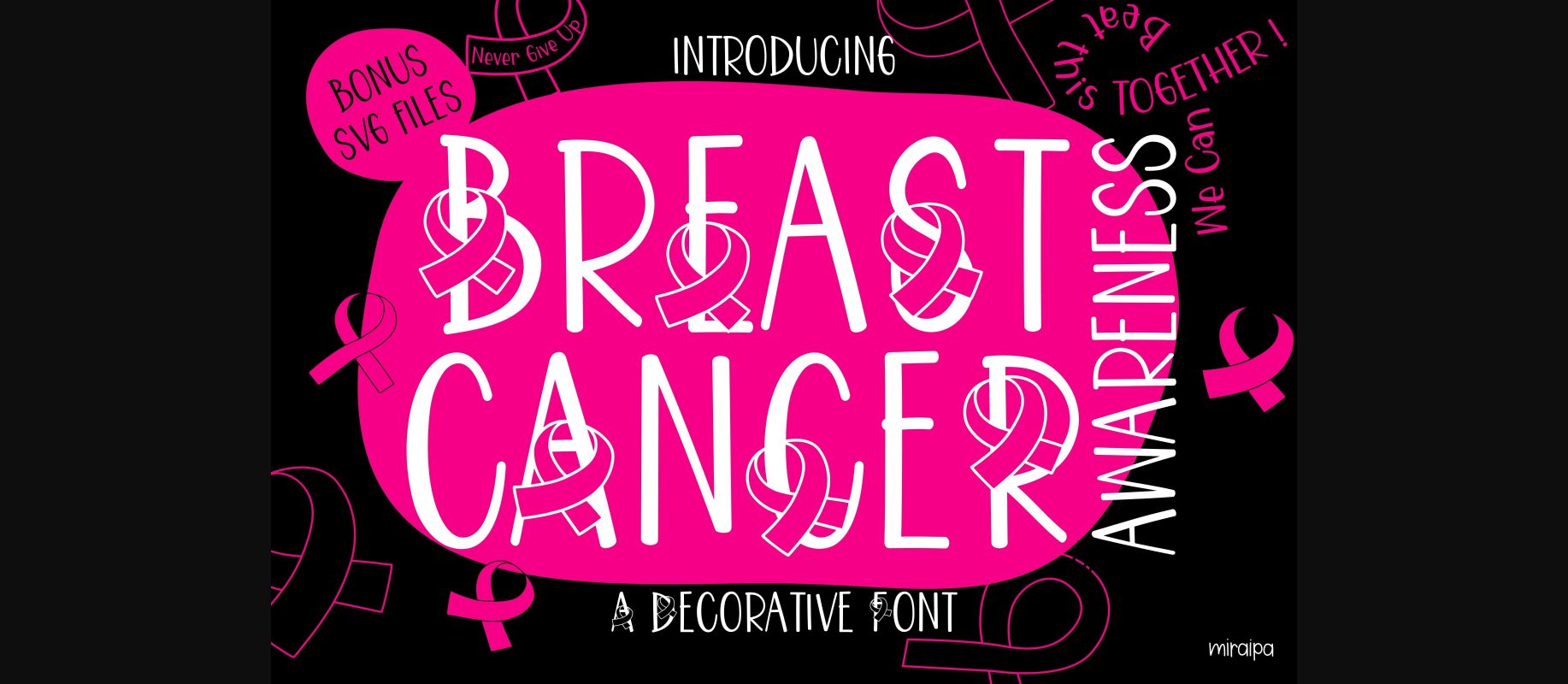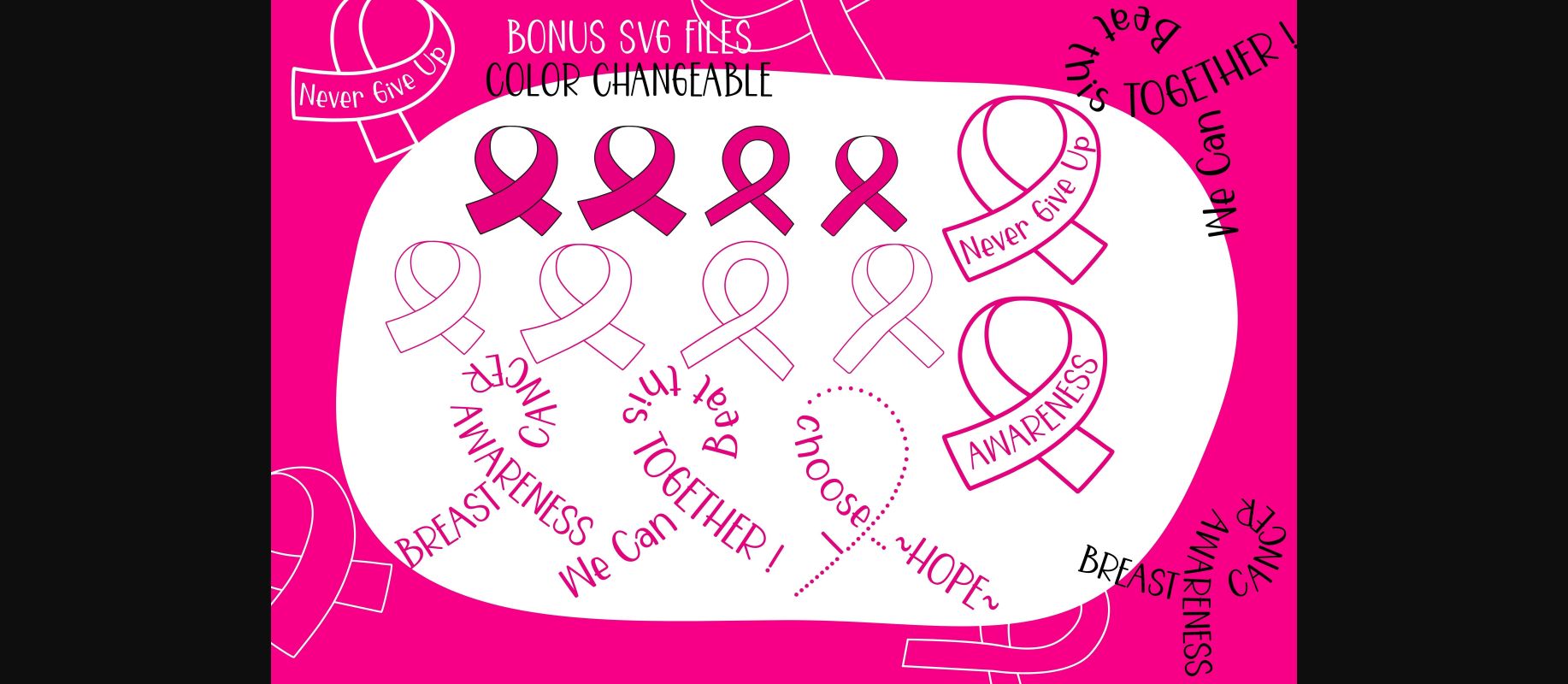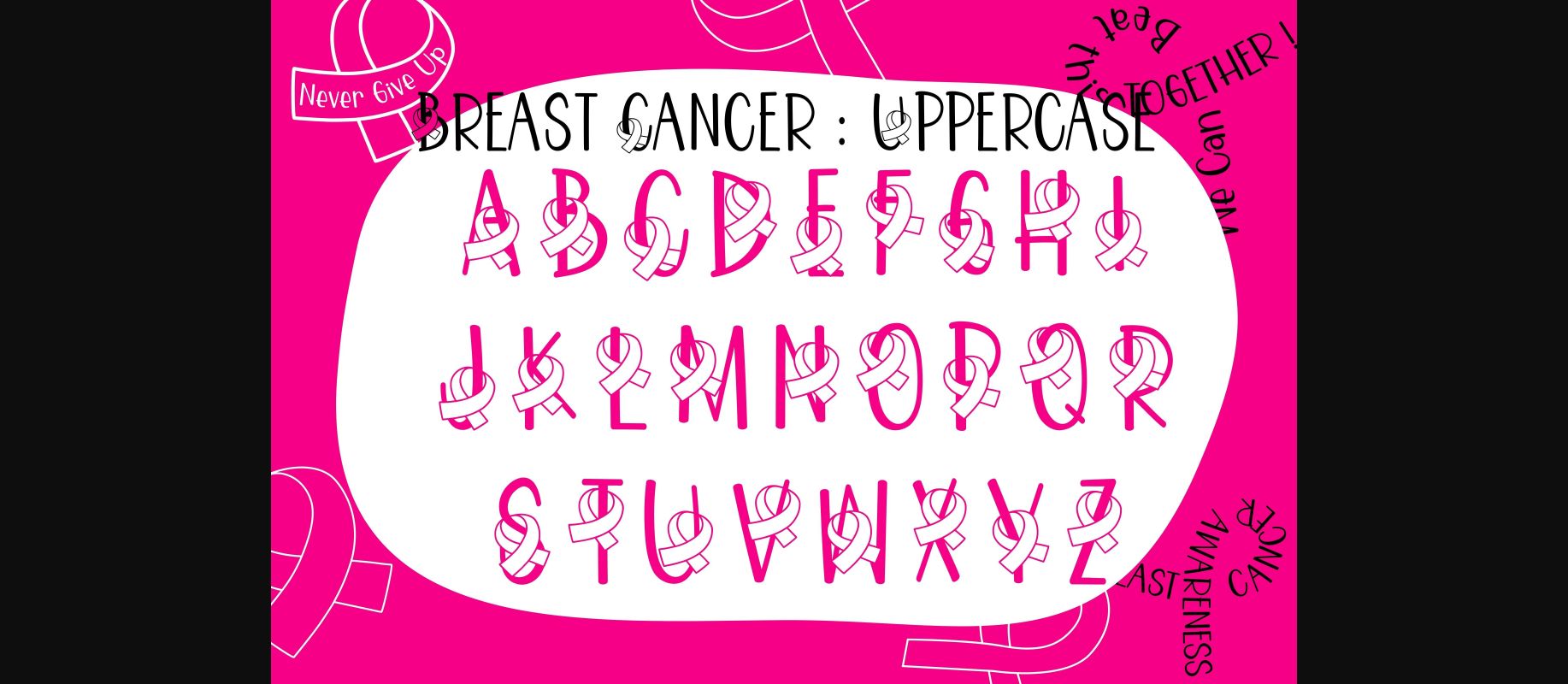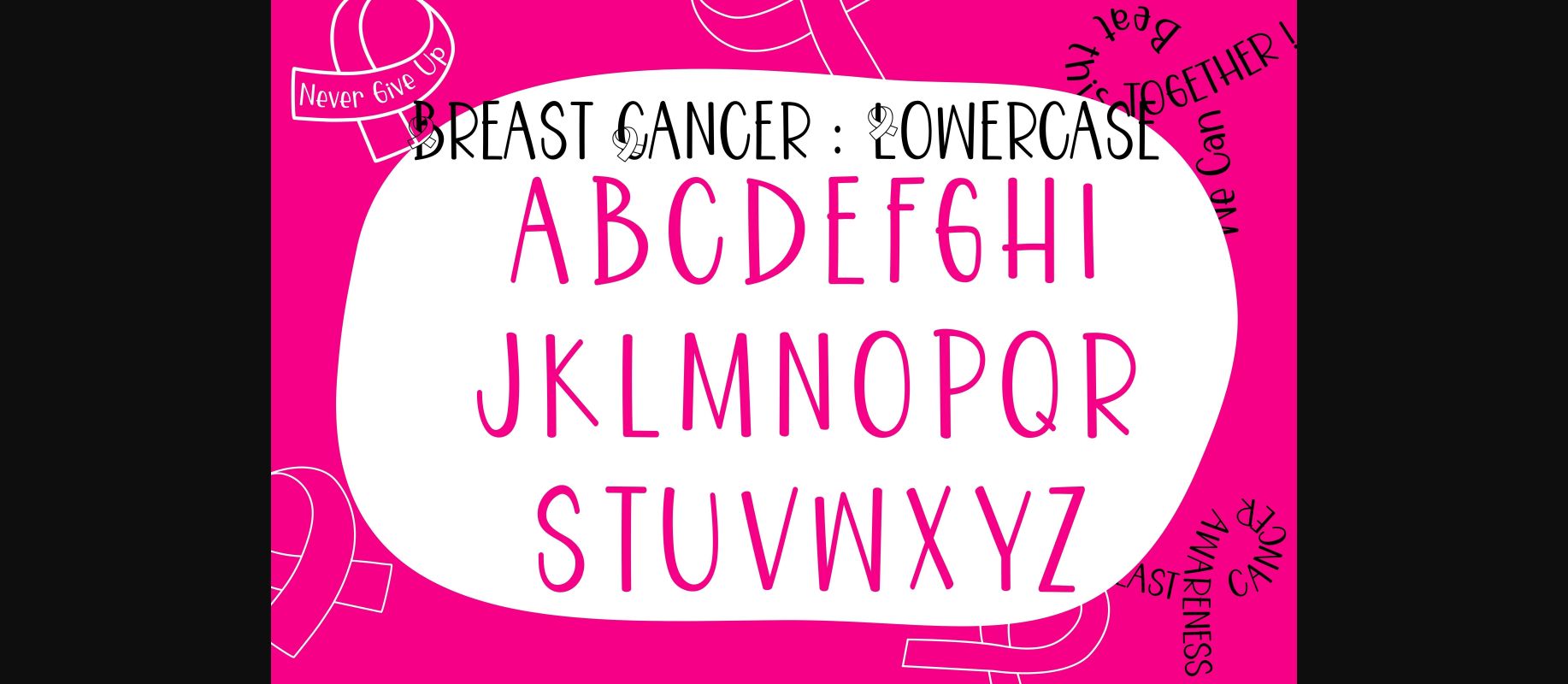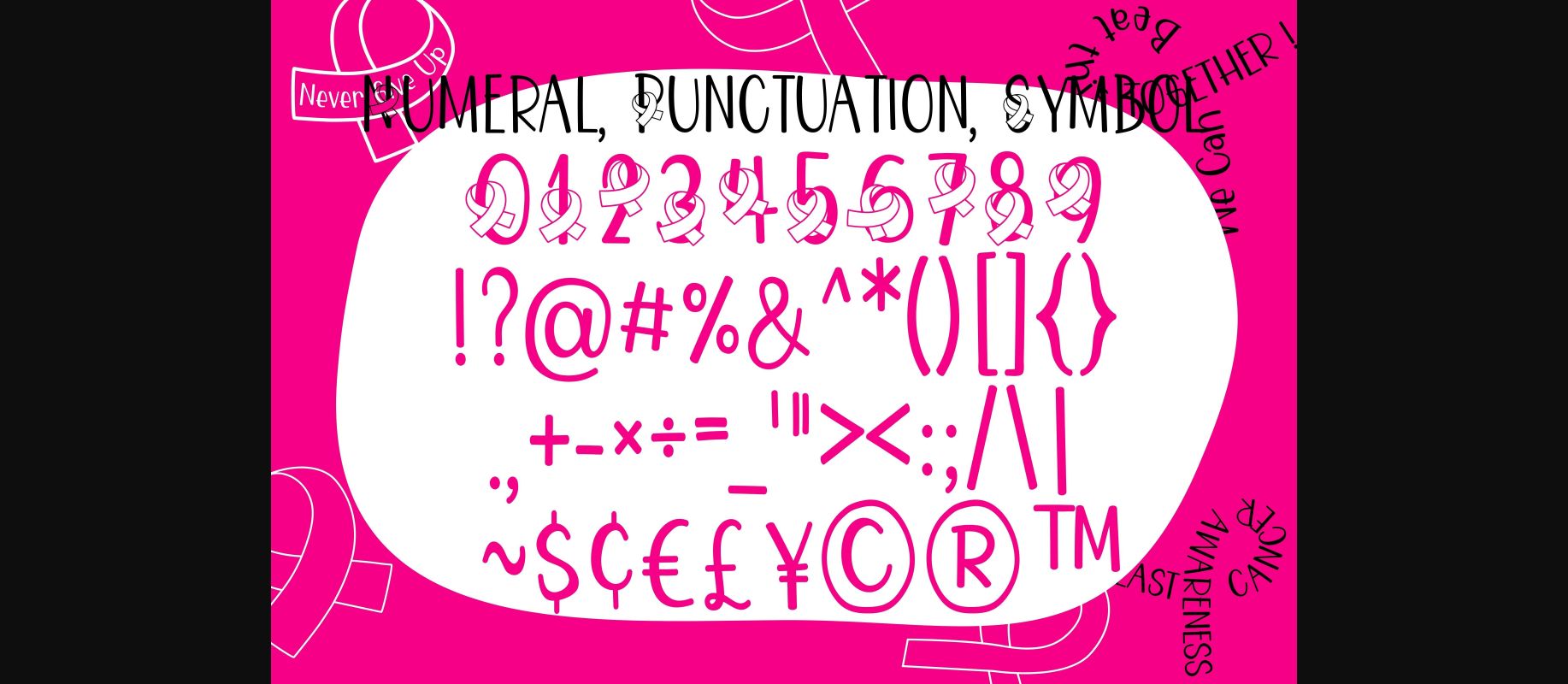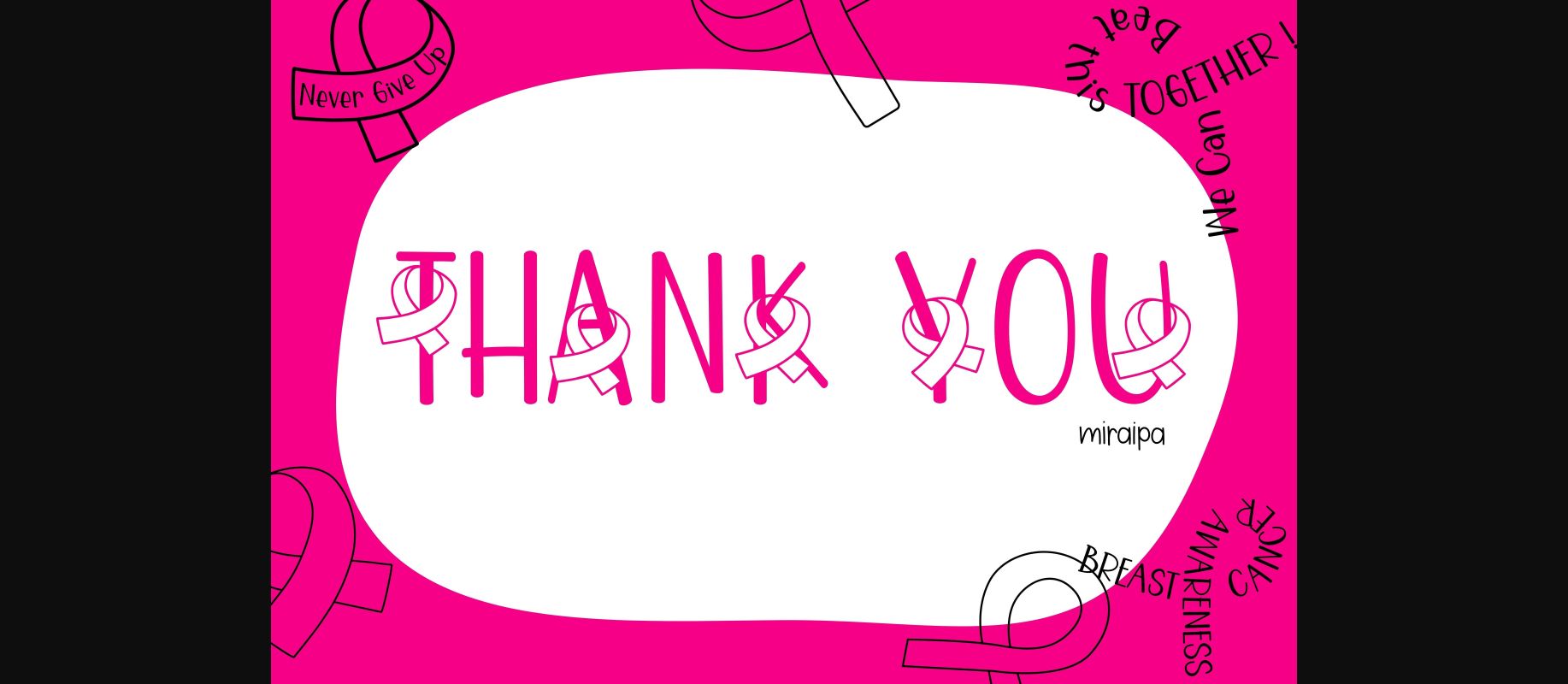
Breast Cancer Awareness Font
About Breast Cancer Awareness Font
Breast Cancer Awareness is a decorative font designed in a friendly and lovely font style to cheer up and support all. It would be awesome for your upcoming projects, so add it confidently to your creations and you will love the results!